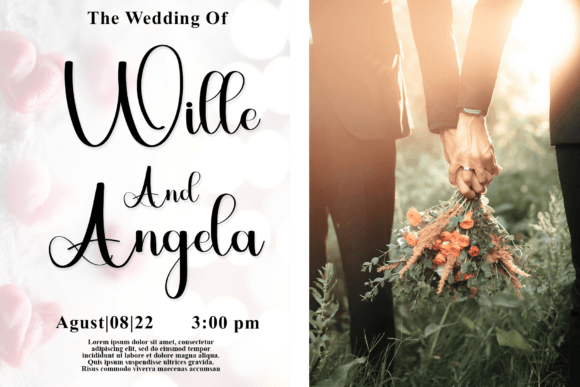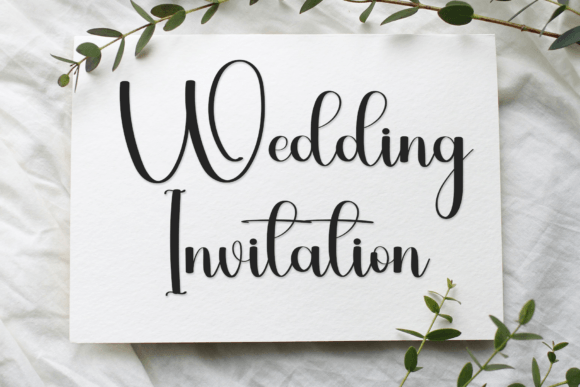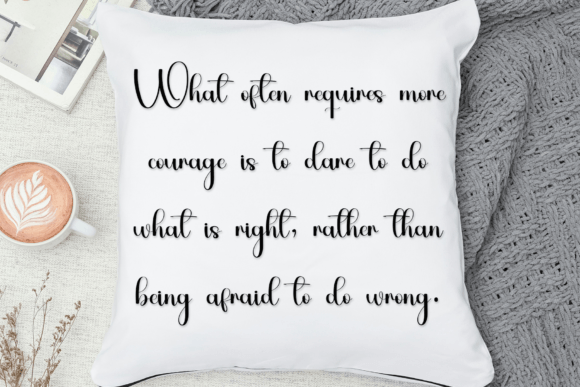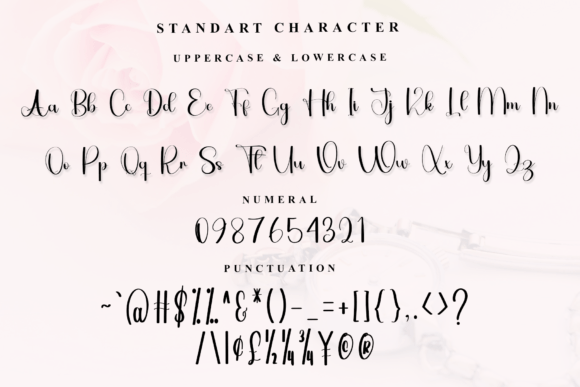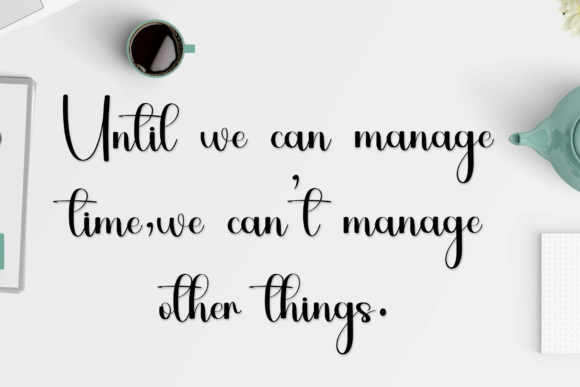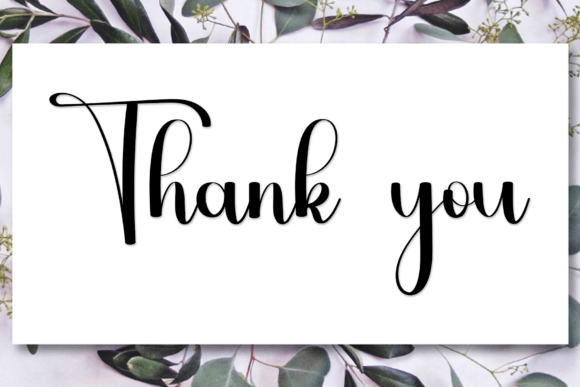
Bolder Font: Elevate Your Designs with Elegance and Flair
In the world of typography, a well-chosen font can make all the difference in elevating your design from ordinary to extraordinary. If you’re a designer, crafter, or creative looking for a font that exudes elegance and sophistication, look no further than Bolder Font. This delicate, elegant, and flowing handwritten font is sure to capture your heart and bring your most creative ideas to life.
The Characteristics of Bolder Font
Bolder Font boasts beautiful and well-balanced characters that make it an incredibly versatile choice for a wide range of designs. Whether you’re working on a branding project, a wedding invitation, or a packaging design, this font is sure to match your vision perfectly. Its elegant and flowing script is reminiscent of handwritten calligraphy, adding a touch of sophistication and refinement to any design.
What Makes Bolder Font Special?
One of the standout features of Bolder Font is its PUA (Private Use Area) coding. This means that you can easily access all the amazing glyphs and ligatures that make this font so unique. With PUA coding, you can unlock a world of creative possibilities and take your designs to the next level. Whether you’re looking to add a touch of whimsy or create a more formal, elegant look, Bolder Font has got you covered.
Bolder Font is the perfect addition to your design arsenal, offering endless possibilities for creative expression. Imagine pairing this beautiful font with a bold graphic or a delicate illustration – the results are sure to be stunning. You can use Bolder Font to:
- Create eye-catching branding and logos that showcase your business’s personality and style
- Design beautiful wedding invitations, save-the-dates, and other stationery that exudes elegance and sophistication
- Develop packaging designs that stand out on store shelves and reflect your brand’s values and aesthetic
- Elevate your digital designs, such as social media graphics, blog headers, and email newsletters, with a touch of elegance and refinement
Tips for Using Bolder Font Effectively
In conclusion, Bolder Font is a delicate, elegant, and flowing handwritten font that is sure to elevate your designs to new heights. With its beautiful and well-balanced characters, PUA coding, and endless design possibilities, this font is a must-have for designers, crafters, and creatives. Whether you’re looking to add a touch of sophistication or create a more playful, whimsical design, Bolder Font is the perfect choice. So why wait? Add Bolder Font to your design arsenal today and watch your creative ideas come alive!